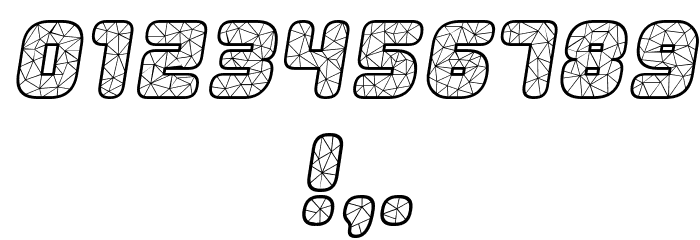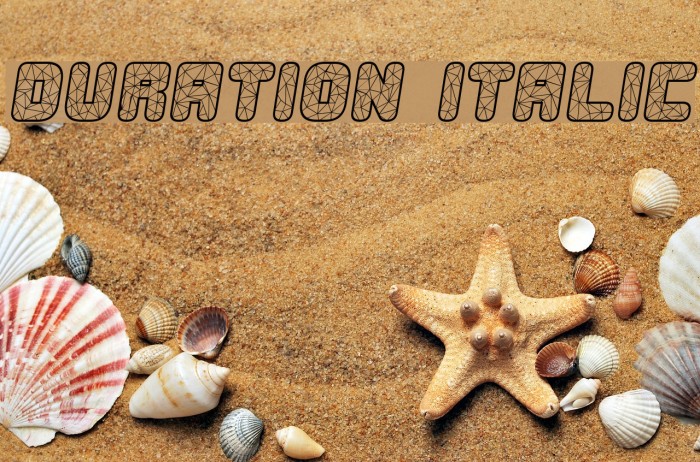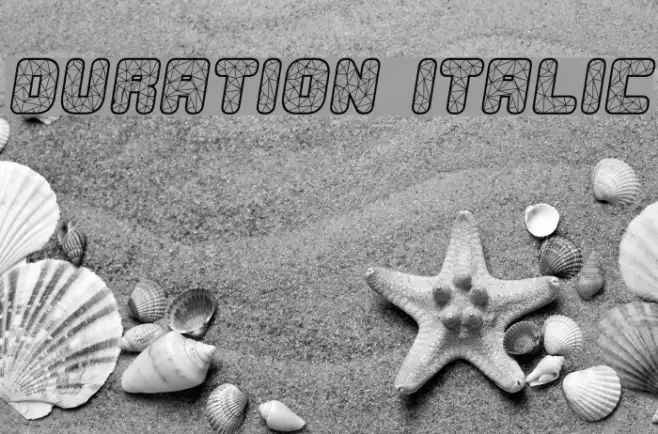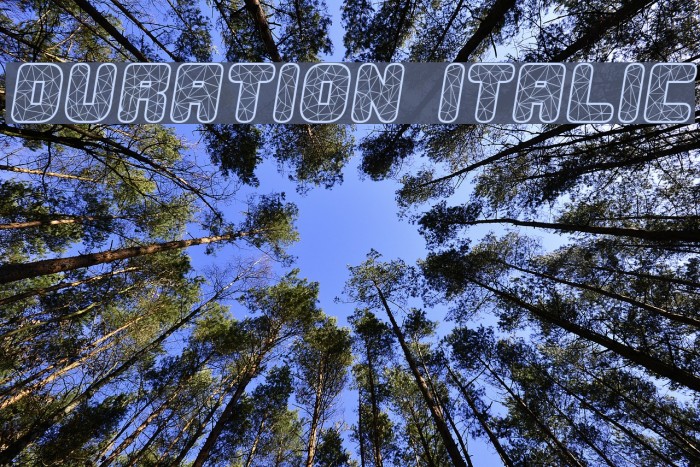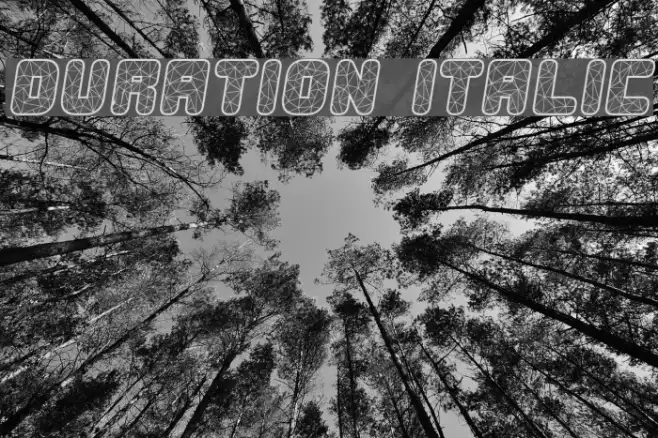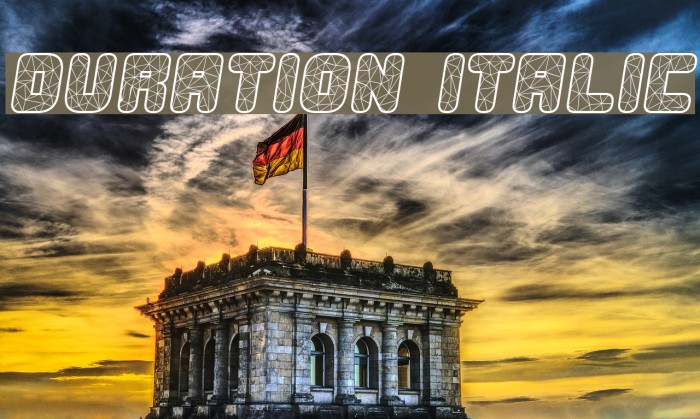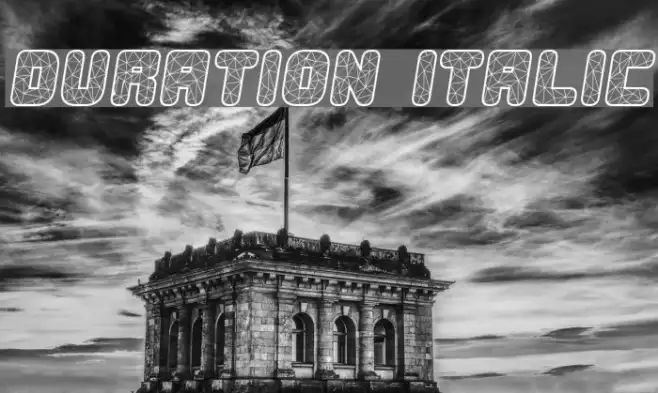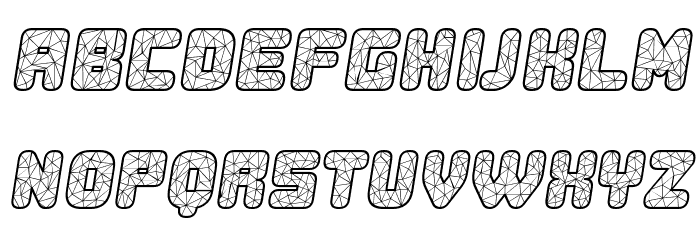
Duration Italic Font
This font features a unique geometric design with a mesh-like pattern filling each character. The letters are bold and rounded, giving them a playful yet structured appearance. The intricate internal lines create a sense of depth and complexity, making it stand out as a decorative typeface. The uppercase and lowercase letters maintain a consistent style, while the numbers and special characters complement the overall aesthetic. This font is ideal for projects that require a modern and artistic touch, offering a distinctive look that captures attention.
A bold, geometric font with a mesh-like pattern and rounded edges.
• Proposed Projects: Ideal for branding, posters, and creative digital designs that need a modern and artistic flair.
• Category: Decorative/Display
• Overall Style: Modern
• Use Case: Logos, Headlines, Posters